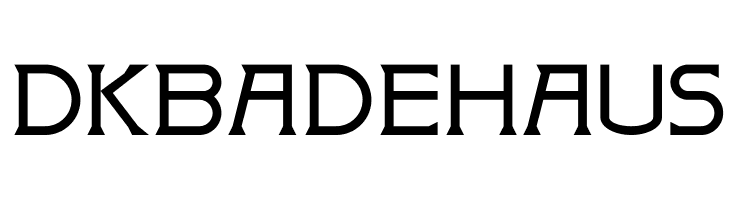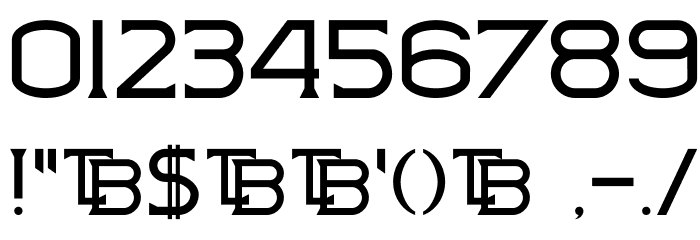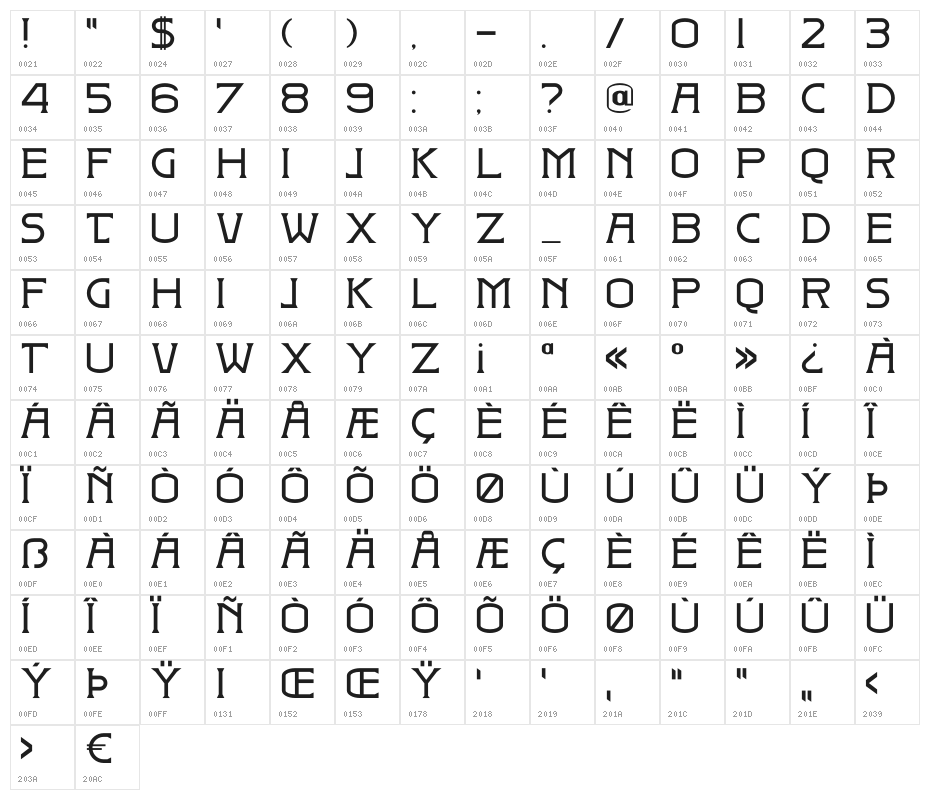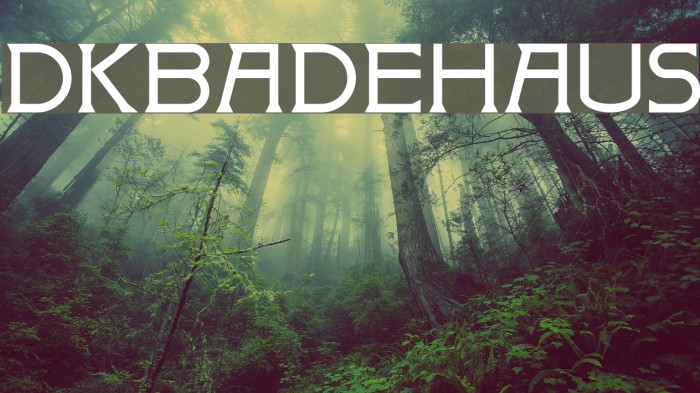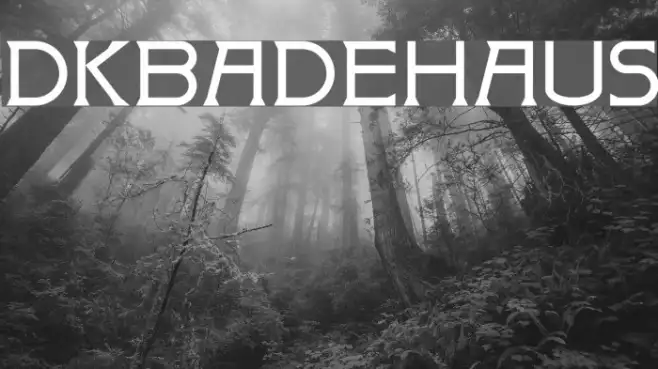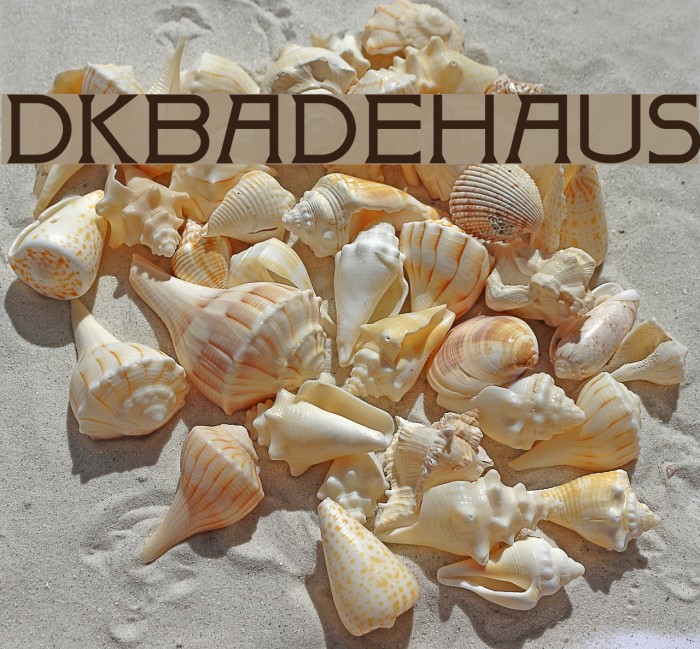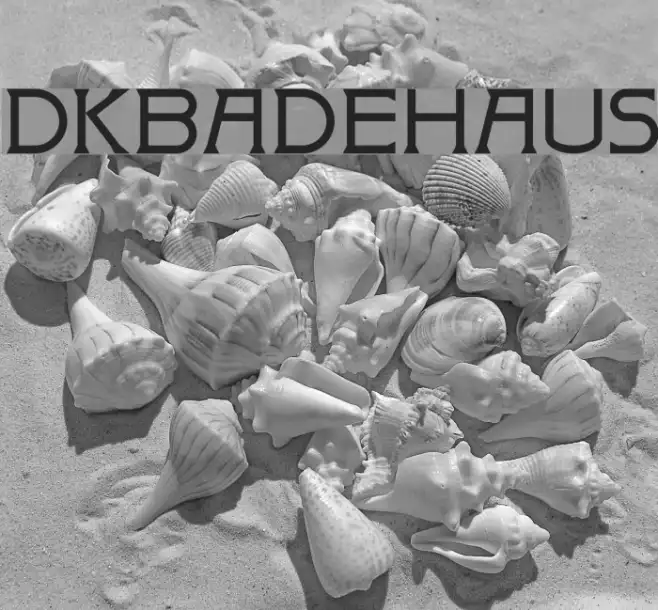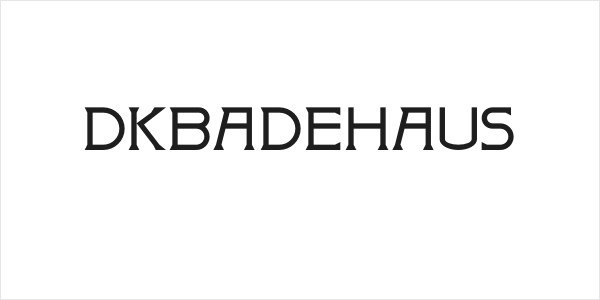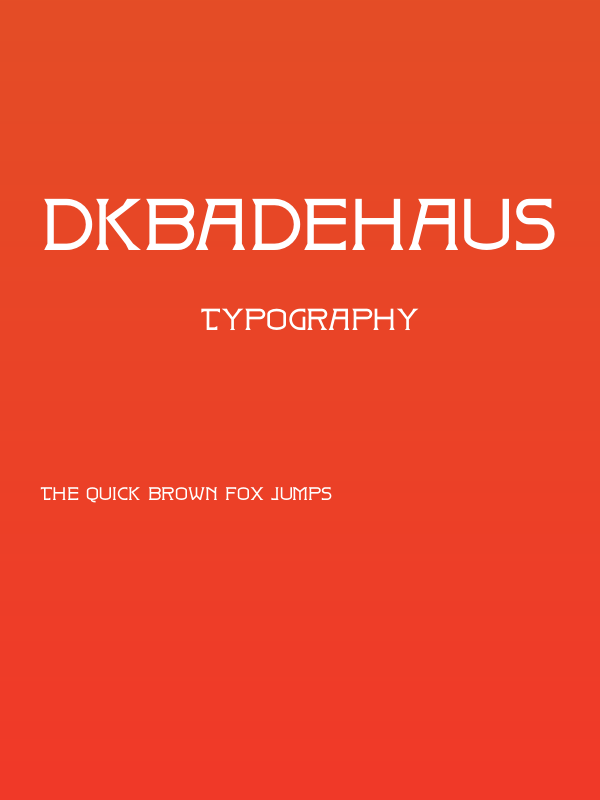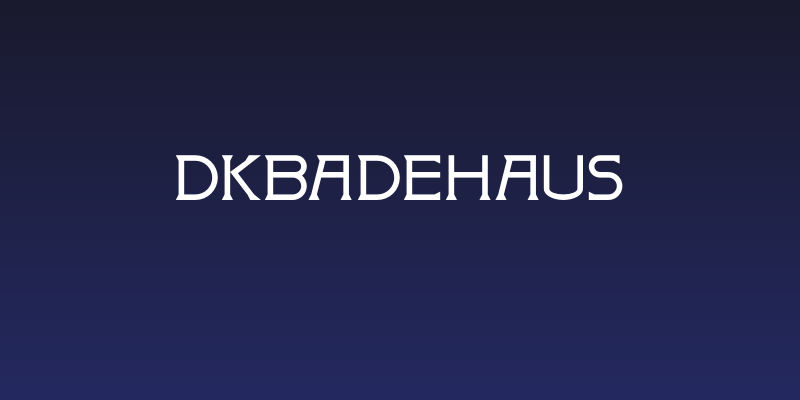
DKBadehaus Font
DKBadehaus Description
This font features a unique blend of geometric and angular elements, creating a modern and slightly futuristic appearance. The uppercase letters are bold and distinct, with sharp edges and a consistent height that conveys a sense of stability and strength. The lowercase letters maintain the same angular style, offering a cohesive look across both cases. Numerals are clear and easy to read, with a uniform width that complements the overall design. Special characters are creatively integrated, maintaining the font's distinctive style while ensuring readability. The font's structure is clean and uncluttered, making it suitable for various design applications where a modern and edgy aesthetic is desired.
| Proposed Projects | Ideal for branding, logos, headlines, and digital interfaces where a modern and edgy look is desired. |